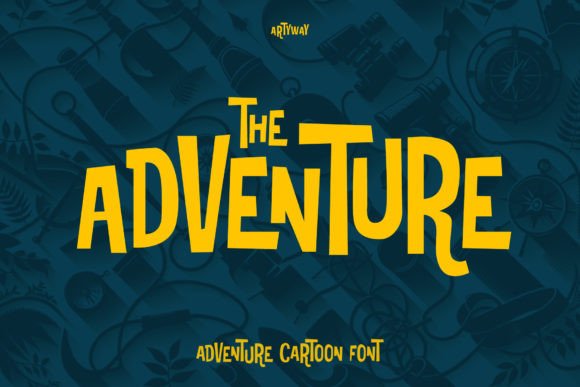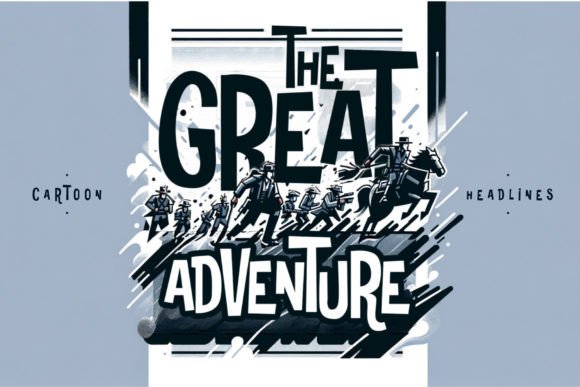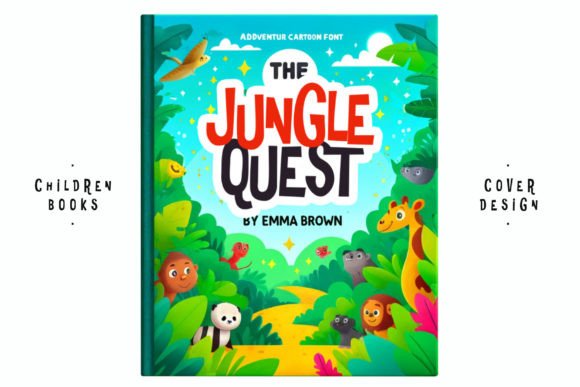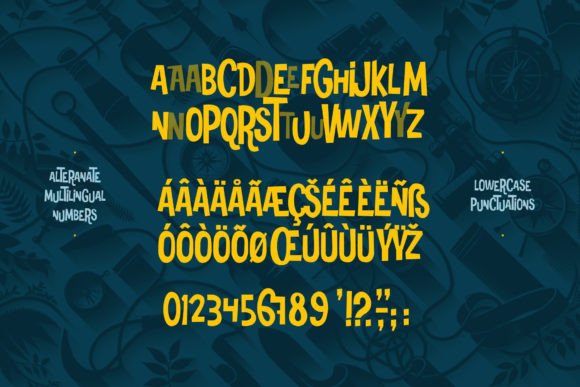
About the Adventure Font
Make a bold statement with Adventure Font, a powerful and memorable font. Adventure Cartoon” – The Perfect Typeface for Fun and Playful Designs
Adventure Cartoon is designed to bring a sense of playfulness and excitement to your projects. Its bold, funny characters are perfect for engaging and entertaining designs, making it an ideal choice for children’s content, playful logos, and dynamic posters. Each letter is crafted with a unique personality, ensuring your text stands out with a distinctive charm.
The font supports multiple languages and includes special characters, making it versatile for a wide range of uses.
Adventure Font Usage Examples
Adventure Font Example